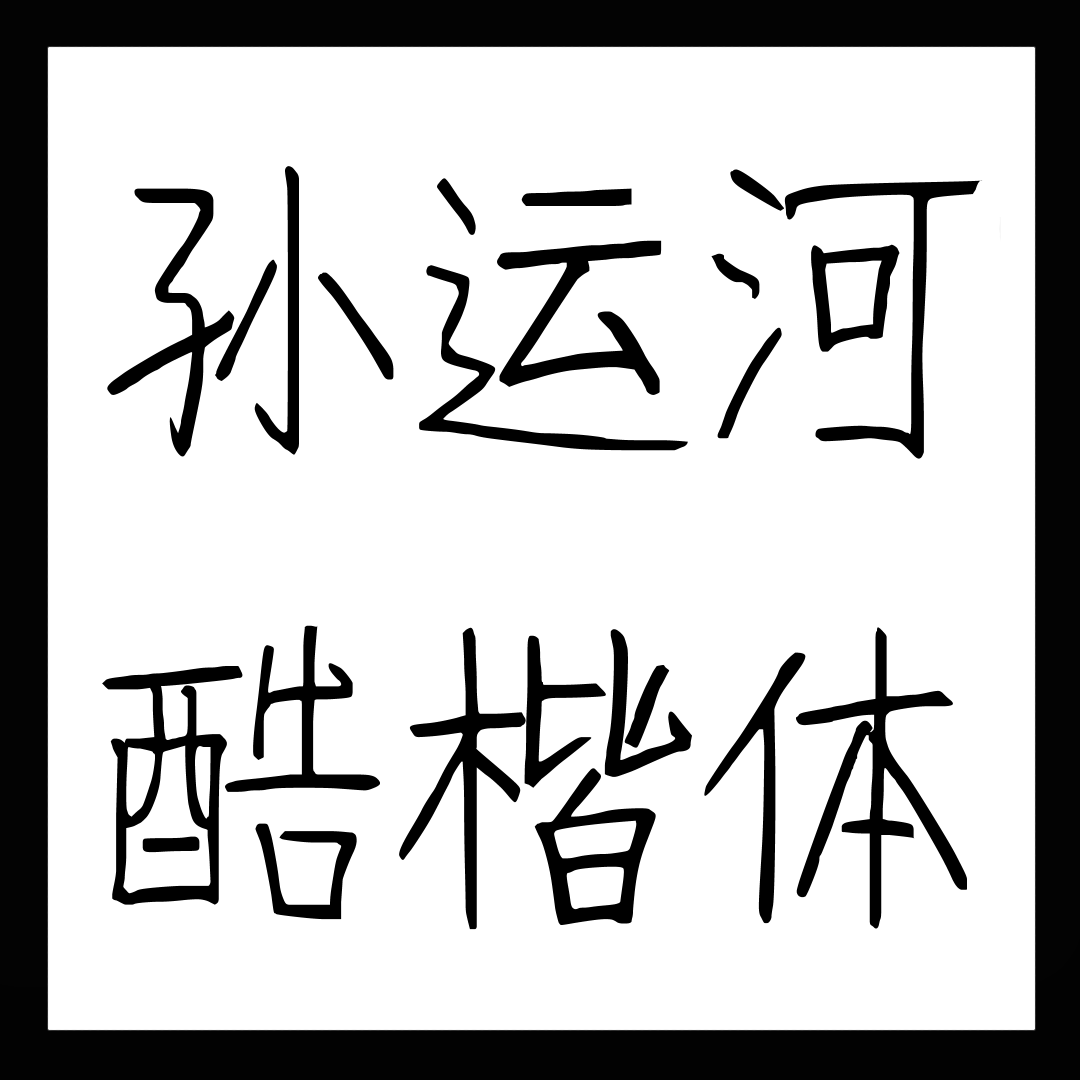
Sunyunhekukaiti Font – Adapt to English
Elevate Your Don’t Starve Together Interface with the Sunyunhekukaiti Font Mod
Are you looking to add a touch of personalized flair to your Don’t Starve Together experience? This innovative mod introduces the distinctive Sunyunhekukaiti font, transforming the game’s interface with a unique visual style. Go beyond the standard look and inject a new personality into every menu, crafting screen, and dialogue box you encounter in the constant struggle for survival.
Customization and Clarity
This mod isn’t just about aesthetics; it also offers practical benefits. The Sunyunhekukaiti font has been carefully refined to ensure readability and clarity within the game’s often chaotic environment. Whether you’re managing your inventory, strategizing your next move, or simply reading crucial in-game text, the new font aims to enhance your overall visual experience without compromising on usability.
Key Features of the Sunyunhekukaiti Font Mod:
- Transforms the game interface with the unique Sunyunhekukaiti font.
- Refined design for improved readability and visual appeal.
- Offers customizable size options to suit individual preferences.
- A fresh way to personalize your Don’t Starve Together playthrough.
Tailor Your Experience
One of the standout aspects of this mod is its adaptability. You can adjust the font size to perfectly match your viewing preferences and playstyle. This level of customization ensures that the new font integrates seamlessly into your gameplay, providing a comfortable and visually pleasing interface no matter your screen resolution or personal needs.